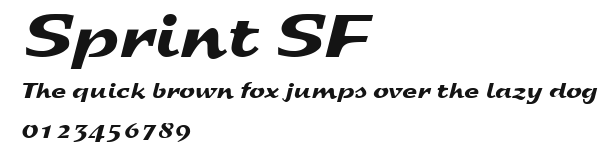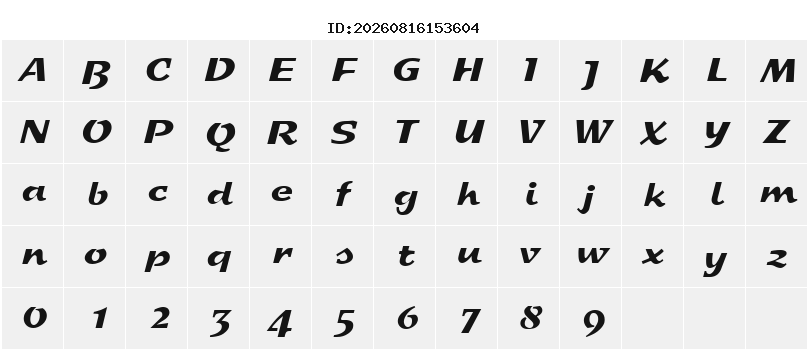
• Font Name: Sprint SF
• Full Font Name: Sprint SF
About Sprint SF.ttf
Sprint SF.ttf is a modern, elegant sans-serif font designed for ultimate readability and visual harmony. Perfect for branding, headlines, web design, and print materials.